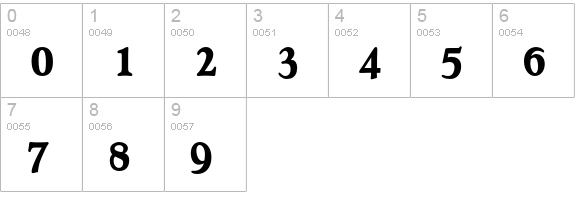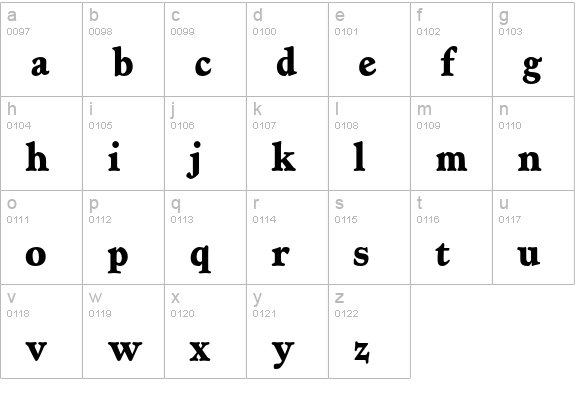
AT Hadriano Std Cond Extra Bold Font Details
AT Hadriano Std Cond Extra Bold is a strong, high-contrast, condensed-width variant in the AT typeface family \xE2\x80\x94 well suited to headlines, attention-grabbing titles, and strong calls-to-action.
AT Hadriano Std Cond Extra Bold is a bold and impactful typeface that commands attention with its strong and confident presence. Its condensed form gives it a sleek and modern look, making it ideal for headlines, posters, and other display purposes where a bold statement is needed. The sharp lines and distinct letterforms of this font exude a sense of power and authority, making it a perfect choice for projects that require a strong visual impact. What's even better is that AT Hadriano Std Cond Extra Bold is available for free download at FontsMarket.com. This means you can easily access this dynamic font for your design projects without any cost, making it a valuable addition to your font library. With its versatility and bold design, AT Hadriano Std Cond Extra Bold is sure to make a bold statement in any design project.